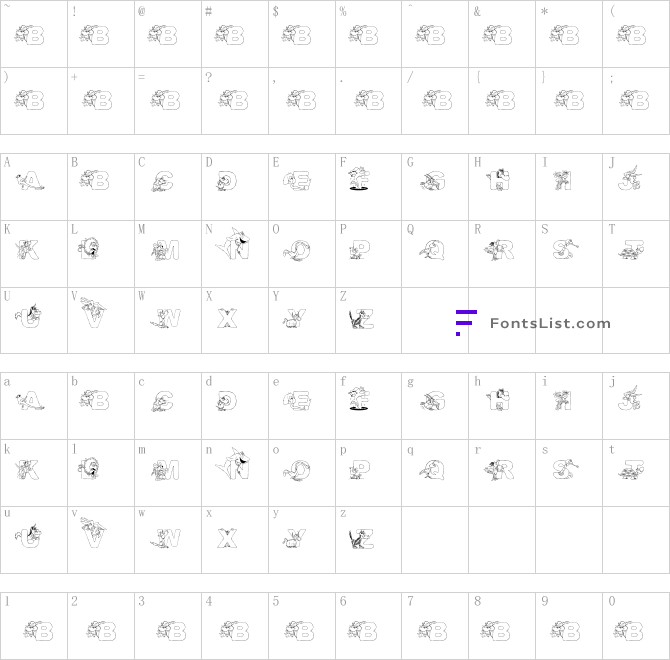
- Font Name:AbecedarianZoo
AbecedarianZoo.ttf is a very beautiful artistic font, AbecedarianZoo.ttf is widely used in the design and printing of various books and pictures,AbecedarianZoo.ttf has a strong visual impact,AbecedarianZoo.ttf is a commonly used font in newspapers, magazines and books, and is used in posters, e-commerce Poster design, store design, logo design, font design and other fields.AbecedarianZoo.